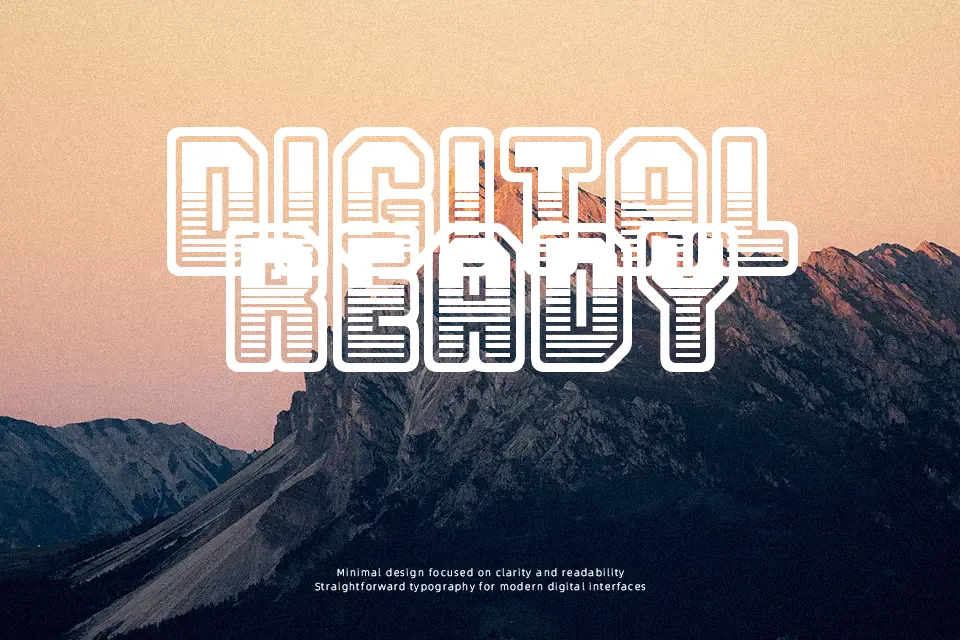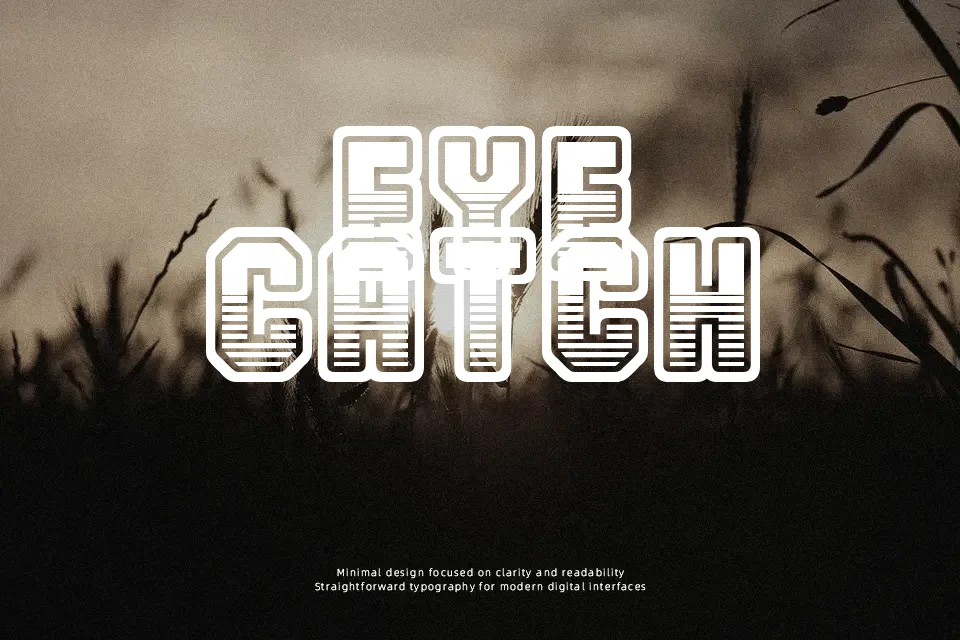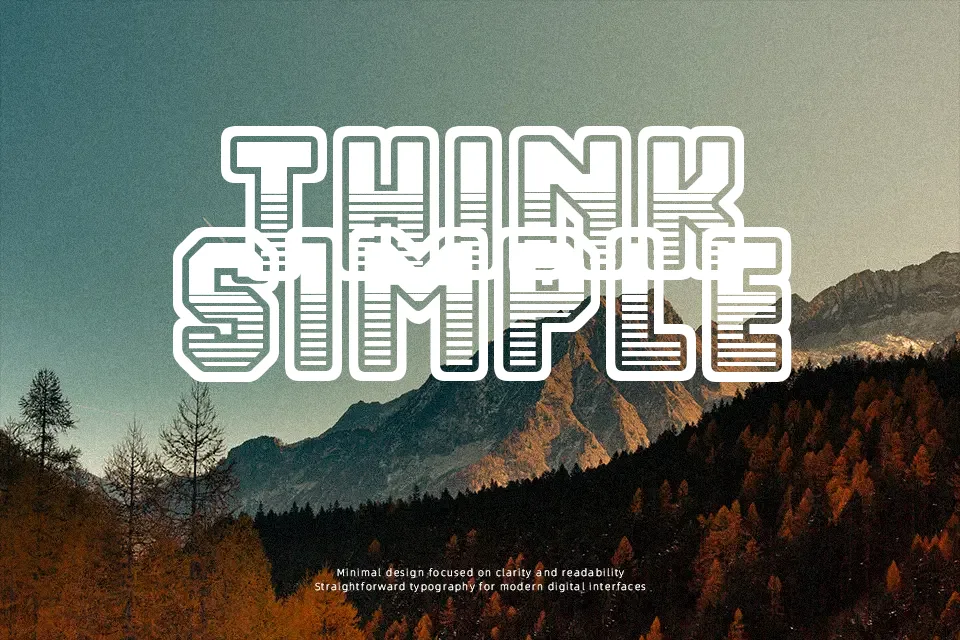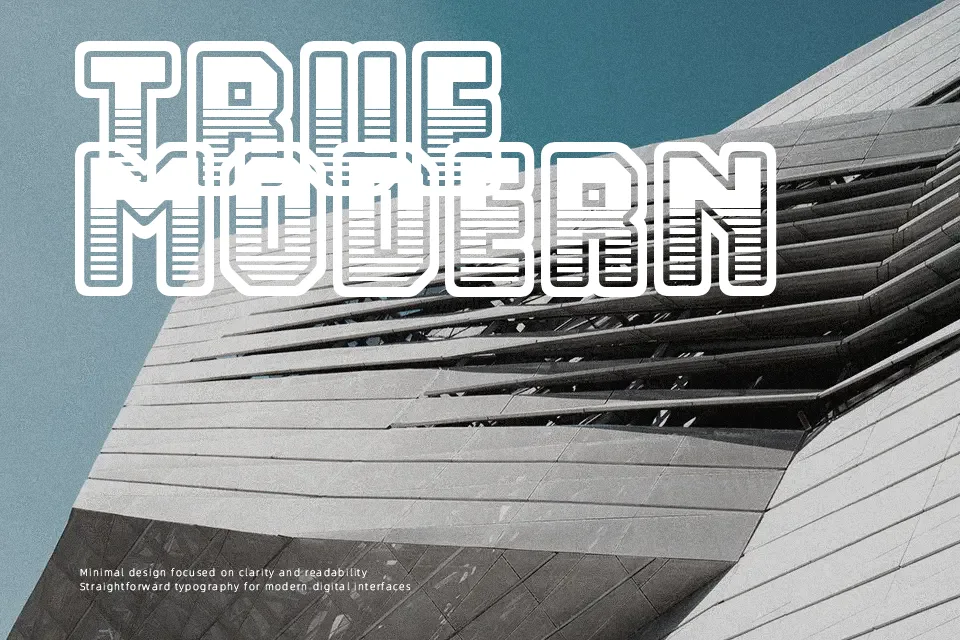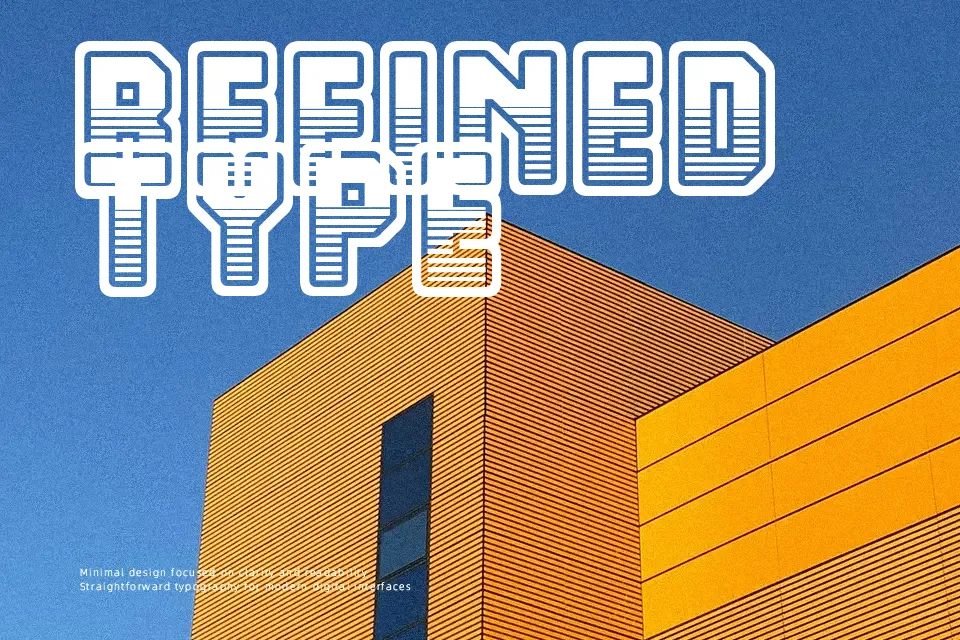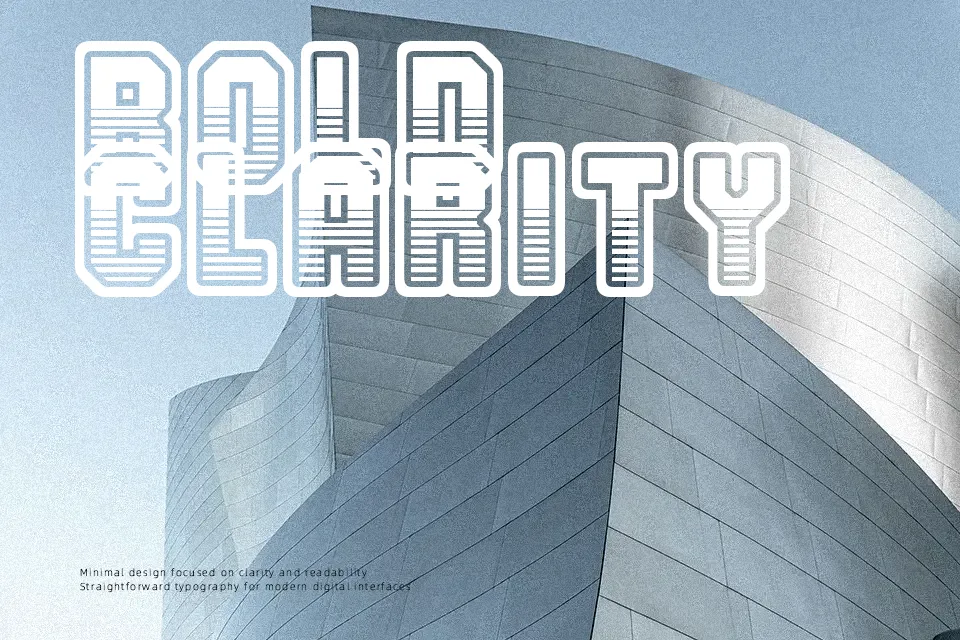
Team 401 Font
Heavy geometric slabs and distinctive horizontally split fills define Team 401 Font, presenting solid upper strokes balanced against fine inline hatching across the bottom half of each glyph. The condensed proportions and uniform block structures create strong visual alignment across all-caps titles, while tight character spacing keeps short titles cohesive. Due to the high density of the internal horizontal striping, fine interior lines quickly blur at reduced scales. The design functions reliably for punchy athletic headings and varsity emblems, but the complex decorative strokes make it impractical for extended body text.
Best For: varsity athletic apparel, sports tournament posters, collegiate merchandise branding, gym headline graphics
Not Ideal For: continuous reading passages, mobile interface body text, dense spreadsheet documentation, small legal disclaimers